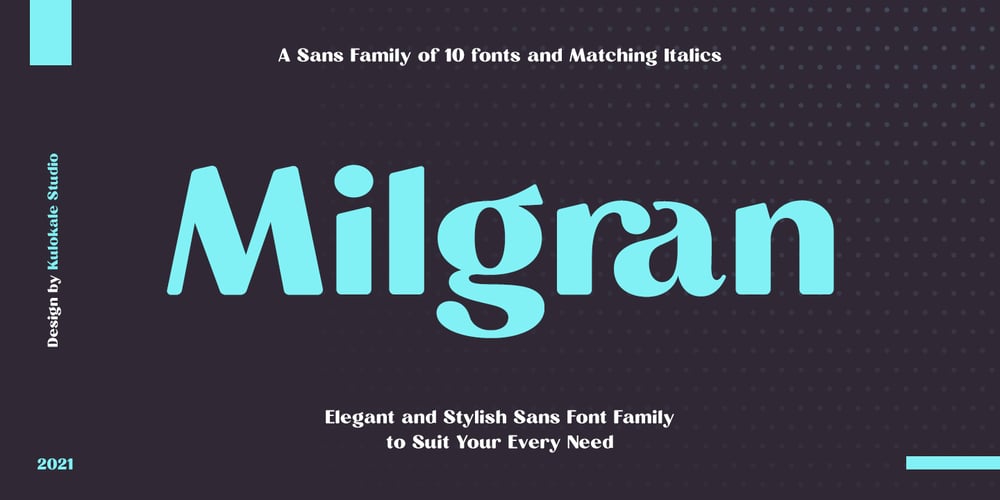
Milgran Font Family was designed by Eko Nur Cahyo and published by Kulokale. Milgran contains 10 styles and family package options. Milgran is a modern and elegant sans-serif font. Milgran is well-suited for advertising, branding, logotypes, packaging, titles, headlines and editorial design.We highly recommend using a program that supports OpenType features and Glyphs panels such as Adobe Illustrator, Adobe Photoshop CC, Adobe InDesign, or CorelDraw, so you can see and access all Glyph variations.This font is encoded with Unicode PUA, which allows full access to all additional characters without having special design software. Mac users can use Font Book, and Windows users can use Character Map to view and copy one of the extra characters to paste into your favorite text editor / application.Thanks for purchasing and have fun!